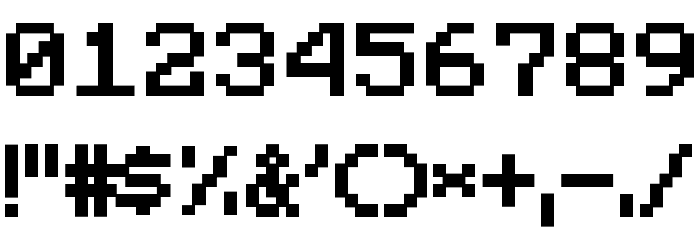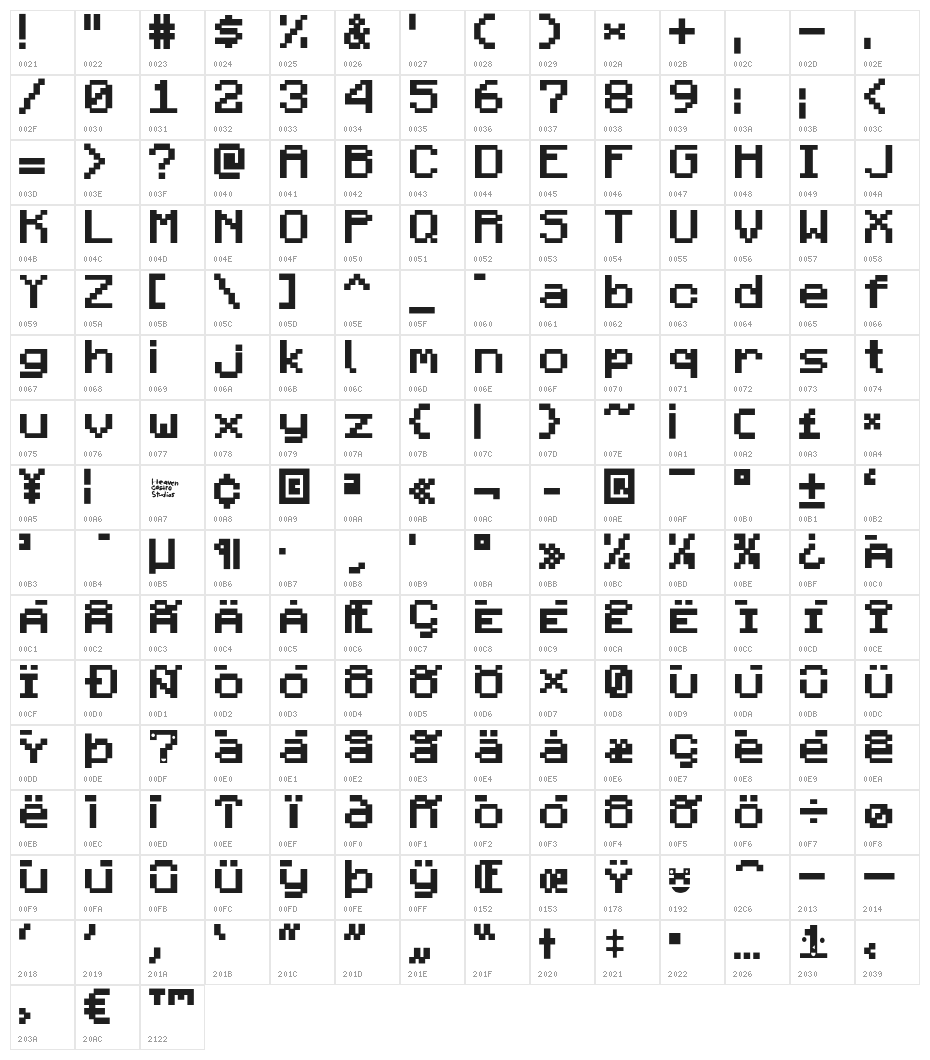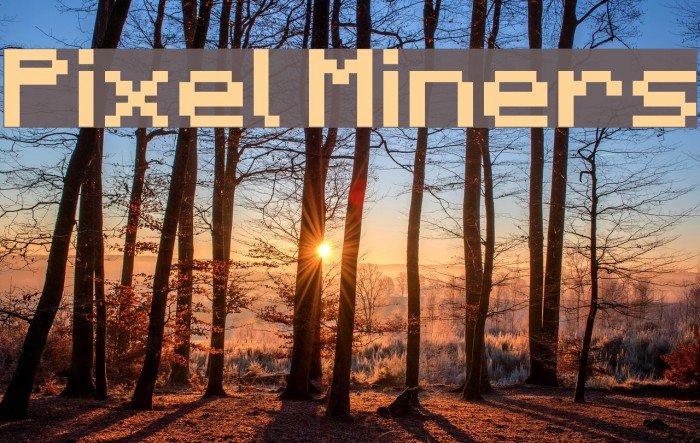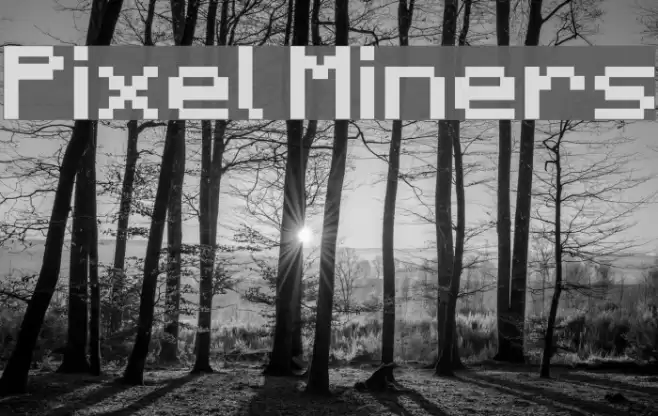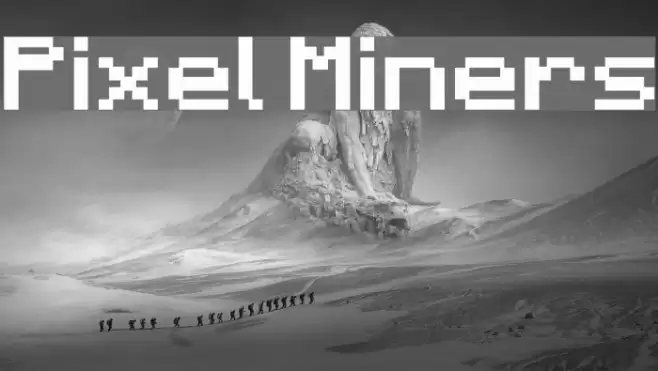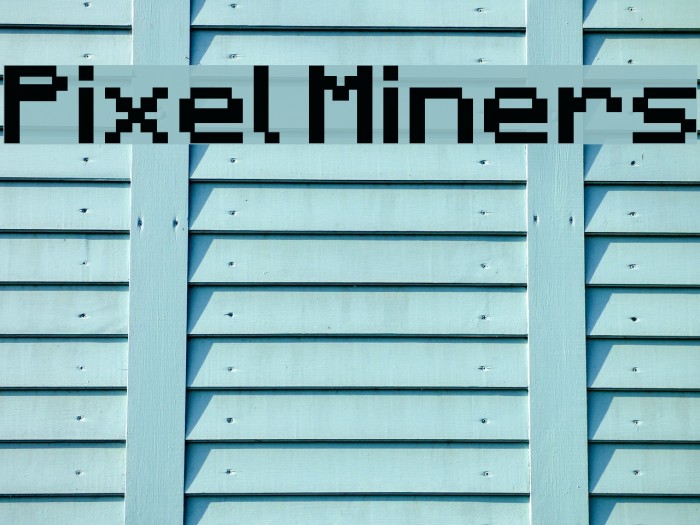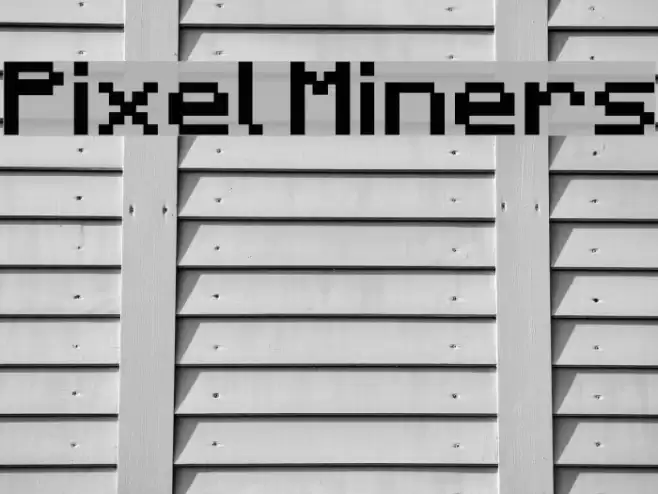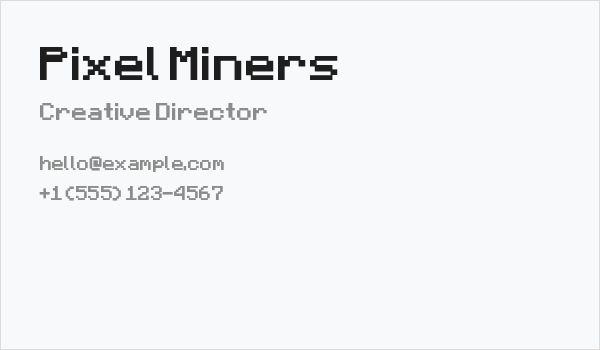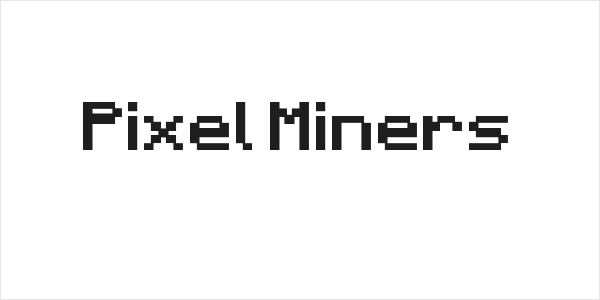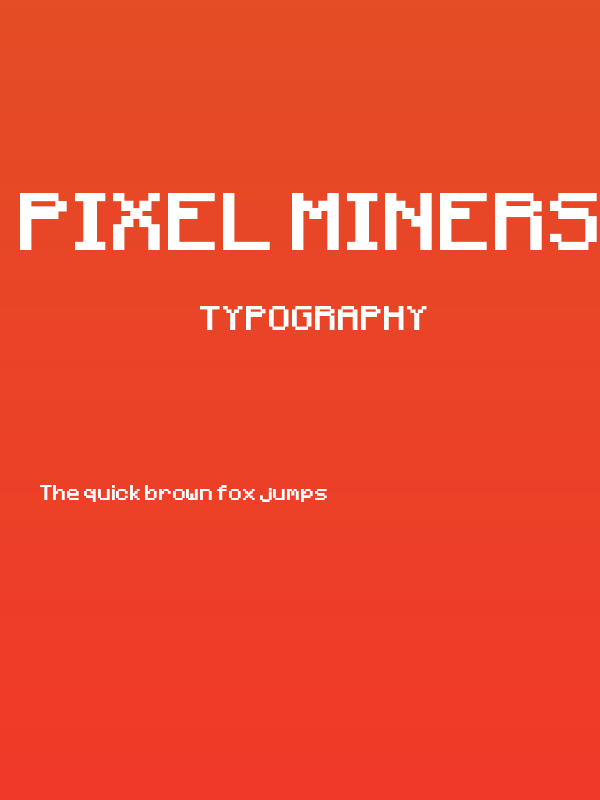
Pixel Miners Font
Pixel Miners Description
This font features a pixelated, blocky design reminiscent of early digital displays and retro video games. Each character is constructed with a uniform grid-like pattern, giving it a distinctly digital and geometric appearance. The uppercase and lowercase letters maintain a consistent height and width, creating a cohesive and structured look. Numbers and special characters follow the same pixelated style, ensuring uniformity across all glyphs. The font's simplicity and clarity make it highly legible, even at smaller sizes, while its nostalgic aesthetic evokes a sense of vintage computing and gaming.
| Use Case | Headlines, Logos, Digital Art |
| Proposed Projects | Ideal for projects involving retro gaming themes, digital art, tech-related branding, or any design requiring a nostalgic digital aesthetic. |